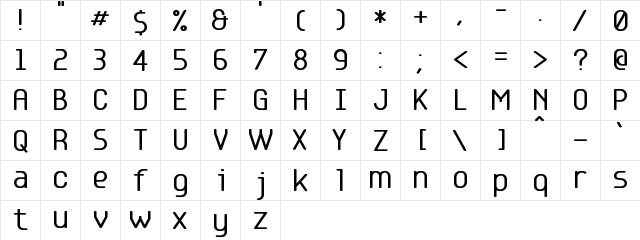
Base5 Regular
Design Context for Base5 Typeface
Base5 offers clean, dependable letterforms without strong stylistic allegiance, making it a practical choice for designers who need flexibility.